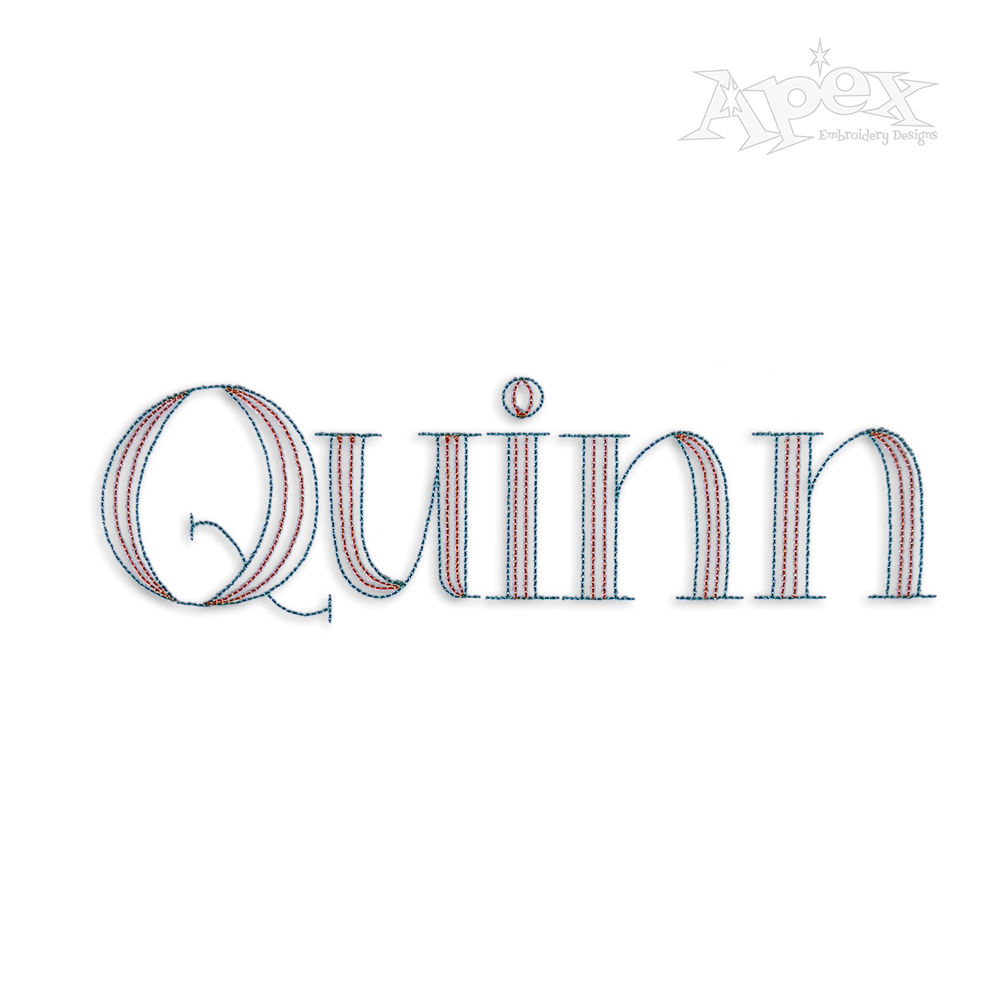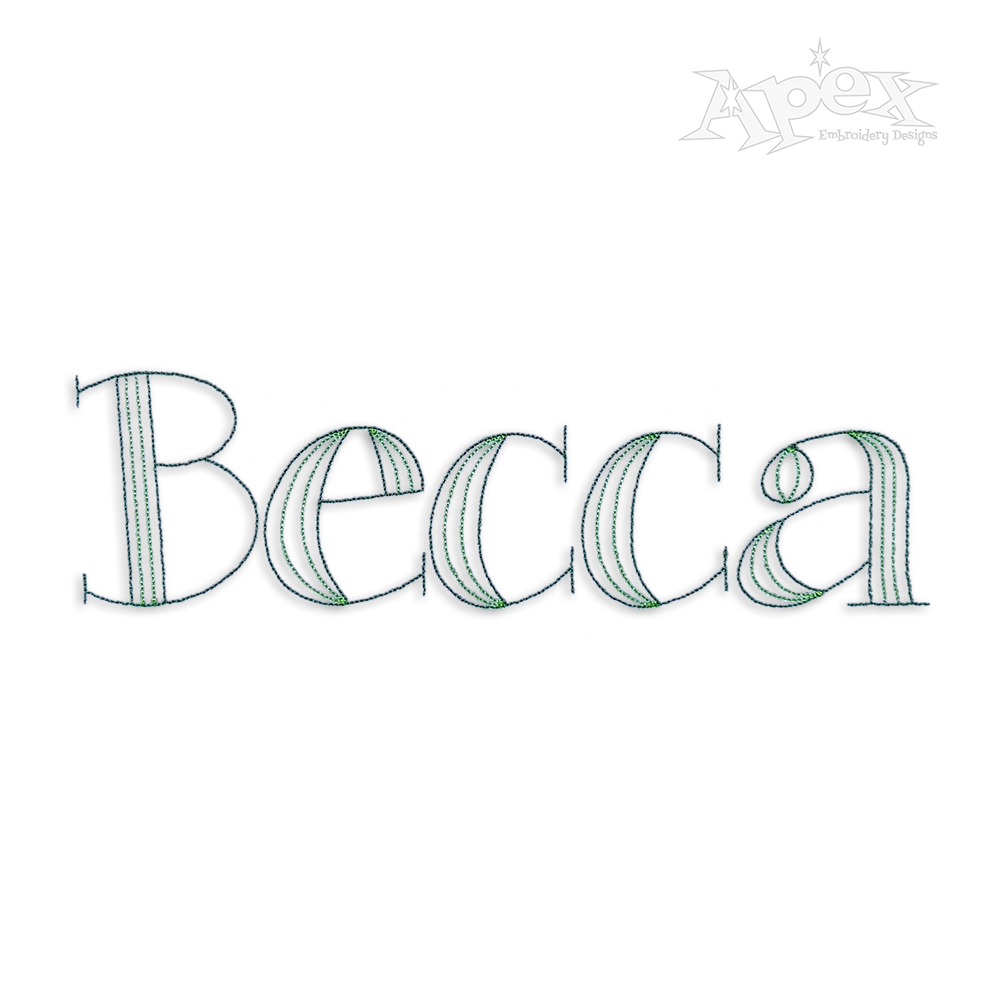
Fairness Sketch Embroidery Font
Born from the desire to capture the relaxed charm of hand-drawn illustration with the precision of modern stitchcraft, the Fairness Sketch Embroidery Font brings an airy, effortless sophistication to your embroidery frame. Traditional block and satin lettering can sometimes weigh down fine textiles with excessive thread density, creating rigid patches that disrupt the drape of delicate garments. In contrast, this open-texture alphabet is digitized with rhythmic, kinetic sketch strokes that dance across the fabric, celebrating negative space and painterly grace. The result is a luminous, contemporary aesthetic that turns large-scale typography into a quick, featherlight stitching experience.
Digitized to provide maximum visual impact with minimal run times, this collection gives you the freedom to compose bold monograms and layered phrasing with ease. The alphabet is provided in three proportional heights:
- 1.0 inch – Subtle, refined, and delicate for smaller accents and detailed accessories.
- 2.0 inches – The versatile mid-size standard for garment personalization and classic linens.
- 3.0 inches – Striking, oversized statement lettering engineered for rapid, puckering-free stitching on broad surfaces.
Project Ideas for Fairness Sketch Embroidery Font
Because of its weightless density and artisanal demeanor, this design translates beautifully across both modern casualwear and heirloom keepsakes:
- Airy Table Linens: Stitch sweeping family initials across washed French flax linen dinner napkins and runners for a bespoke, relaxed-luxe tablescape.
- Bespoke Resort Wear: Adorn flowing linen tunics, chambray button-downs, and breezy cotton cover-ups with large statement monograms that retain fabric movement.
- Modern Heirloom Bedding: Elevate waffle-weave duvet covers, organic muslin throws, and linen pillow shams without the bulk of heavy fills.
- Personalized Canvas Totes: Brand heavy cotton market totes and vacation bags with an artistic, architectural sketch texture.
- Bridal Loungewear: Embroider silky bridesmaid pajama sets and bridal weekend robes with crisp, modern typography that will not pull or distort fine weave silks.
To let the sketch-fill aesthetic shine, select placements that give the letterforms space to breathe:
- Corner Diagonal: Angle 2-inch initials approximately 2 to 3 inches from the hemmed corner of cocktail napkins and pocket squares for an asymmetrical, curated look.
- Center Chest & Yoke: Take advantage of the fast, light stitch count by applying large 3-inch lettering across the back yoke of a denim jacket or the center chest of a relaxed sweatshirt without making the garment stiff.
- Left Chest Monogram: Use the 2-inch variant for a clean, editorial monogram positioned directly above the pocket line or heart.
- Sleeve Cuffs & Hem Bands: The 1-inch scale fits effortlessly along crisp shirt cuffs or the hem edge of spa-inspired robes.
Fairness Sketch Embroidery Font Craft & Letterform Details
Digitizing a sketch-style alphabet demands an intimate understanding of thread dynamics, stitch tension, and travel paths. Rather than packing thread tightly between borders, the Fairness Sketch alphabet utilizes deliberate, layered passes of varying lengths that simulate the stroke of an architect's pen. Each letter features clean structural outlines softened by intentional, breezy interior hatch marks that let the color and weave of your chosen textile show through.
We meticulously charted the digitized travel paths to minimize unnecessary jump stitches and maintain smooth movement across the needle plate, drastically reducing machine run times. By replacing dense underlay grids with free-flowing structural accents, the design achieves maximum dimensional interest while remaining soft against the skin and fluid on the body. It is modern monogramming reimagined: light, expressive, and a pure joy to watch stitch out.